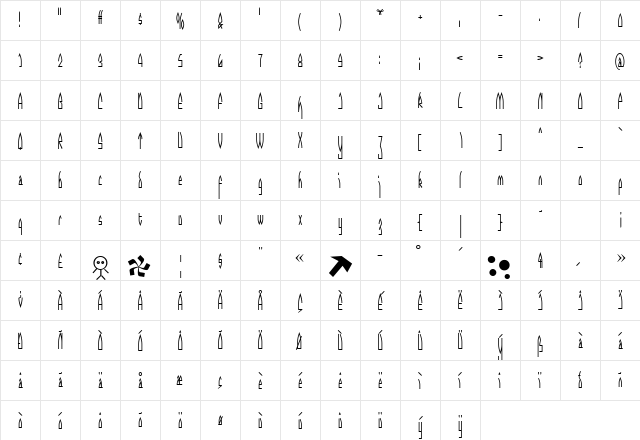
Gothic Horror
Style: Horror
Design Context for Gothic
Gothic carries an unsettling edge - its distorted letterforms are built to unsettle, perfectly suited to horror, Halloween, and dark creative work.
Font Pairing: Pair with a clean neutral sans-serif for body copy to let Gothic's character lead without overwhelming the composition.
Pro Tip: Use Gothic at larger display sizes for maximum impact. Consider generous tracking to let the disturbing character of each letterform breathe.